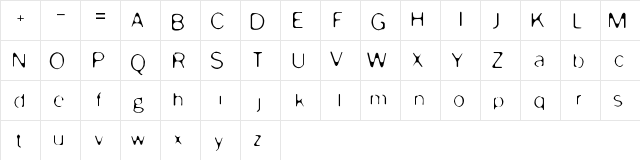
Enervate Regular
Design Context for Enervate Typeface
Enervate is a composed and adaptable typeface that performs quietly and consistently across a wide range of design contexts.